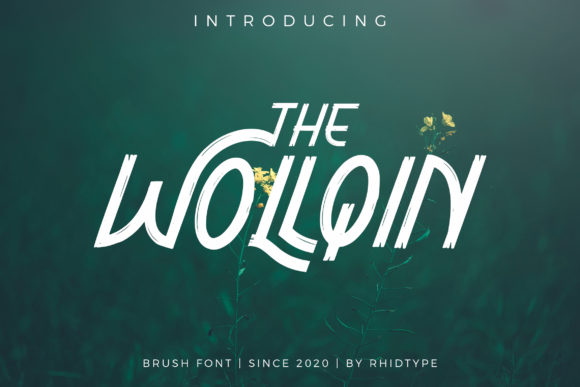
The Wollqin Font
The Wollqin is a unique brush style display font that brings a touch of artistic flair to any design project. Its handcrafted appearance offers both elegance and character, making it an ideal choice for those who want to add visual interest to their work. Whether you're designing for social media, creating DIY crafts, or producing professional materials, The Wollqin can elevate your content with its distinctive style.
Why The Wollqin Matters to Different Audiences
The appeal of The Wollqin varies depending on the user's goals and experience level. For some, it's a creative tool that sparks inspiration; for others, it's a practical asset that enhances communication. Understanding how different groups may use or value this font helps in determining whether it aligns with their needs.
Beginners: A Gateway to Creativity
For beginners, The Wollqin can be an exciting way to explore typography without prior knowledge of advanced design techniques. It allows users to experiment with bold, expressive styles that can make their projects stand out. Beginners might use it for personal projects like greeting cards, social media posts, or even classroom activities where visual impact is key.
One benefit of The Wollqin for new designers is its ease of integration into digital platforms. Many online tools and design software support custom fonts, making it simple for beginners to apply The Wollqin to their work. However, they may also need to consider licensing details, especially if they plan to use the font for commercial purposes.
Professionals: Enhancing Brand Identity
Professionals often seek fonts that reflect brand personality and message. The Wollqin’s artistic nature makes it suitable for branding efforts that aim to convey creativity, uniqueness, or a handcrafted feel. Designers working in marketing or advertising may use it for logos, banners, or promotional materials that require a memorable visual element.
For professionals, factors like reliability, consistency, and scalability are important. They may prefer fonts that work well across various formats, including print and digital. The Wollqin’s versatility in these areas can make it a valuable addition to a designer’s toolkit.
Creators and Entrepreneurs: Standing Out in a Crowded Market
Creators and entrepreneurs often rely on strong visual elements to capture attention and build brand recognition. The Wollqin can help them differentiate their content from competitors by adding a unique aesthetic. This is particularly useful for influencers, artists, and small business owners who want to create eye-catching content.
Entrepreneurs may also consider the commercial value of The Wollqin. If the font is available under a license that permits commercial use, it can be integrated into product packaging, website headers, or promotional campaigns. This not only adds visual appeal but also reinforces brand identity.
Educators and Hobbyists: Fostering Learning and Enjoyment
Educators can use The Wollqin to engage students in creative learning activities. It can be incorporated into lesson plans, art projects, or interactive presentations to make content more visually appealing. Hobbyists, on the other hand, may enjoy using The Wollqin for personal crafts, scrapbooking, or decorative items that reflect their interests.
Both educators and hobbyists may prioritize flexibility and accessibility. The Wollqin’s availability in multiple formats, such as web and desktop versions, ensures that it can be used in various settings. Additionally, its distinctive style can inspire creativity and encourage experimentation.
Key Considerations When Choosing The Wollqin
When evaluating whether The Wollqin is right for your needs, consider several factors:
- Project Type: Is the font suitable for your specific use case? For example, it may not be ideal for body text due to its decorative nature.
- Compatibility: Check if the font works well with your preferred design tools and platforms.
- Visual Impact: Does the font enhance the overall look and feel of your design?
- Learning Curve: How much time will you need to become familiar with the font’s characteristics and best practices?
Practical Examples for Different User Groups
Instagram Influencers: Use The Wollqin for post titles, captions, or profile headers to create a cohesive and stylish aesthetic.
Freelance Designers: Incorporate The Wollqin into client proposals or portfolio presentations to showcase your creative approach.
Small Business Owners: Apply it to signage, packaging, or website headers to reinforce brand identity and attract attention.
Artists and Crafters: Utilize it in handmade products, such as greeting cards, wall art, or stationery, to add a personalized touch.
Whether you’re aiming to enhance your brand, inspire your audience, or simply enjoy the process of creation, The Wollqin offers a versatile and visually striking option. By understanding its strengths and limitations, you can determine if it’s the right choice for your next project.